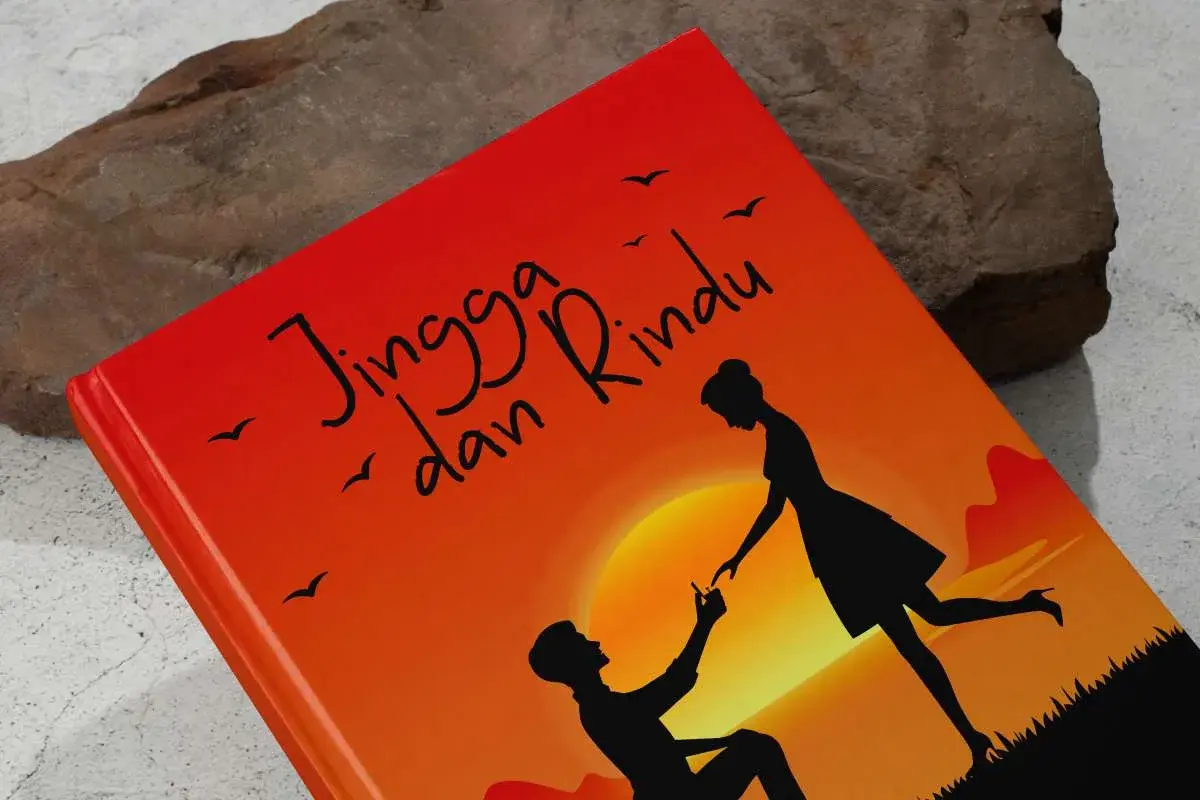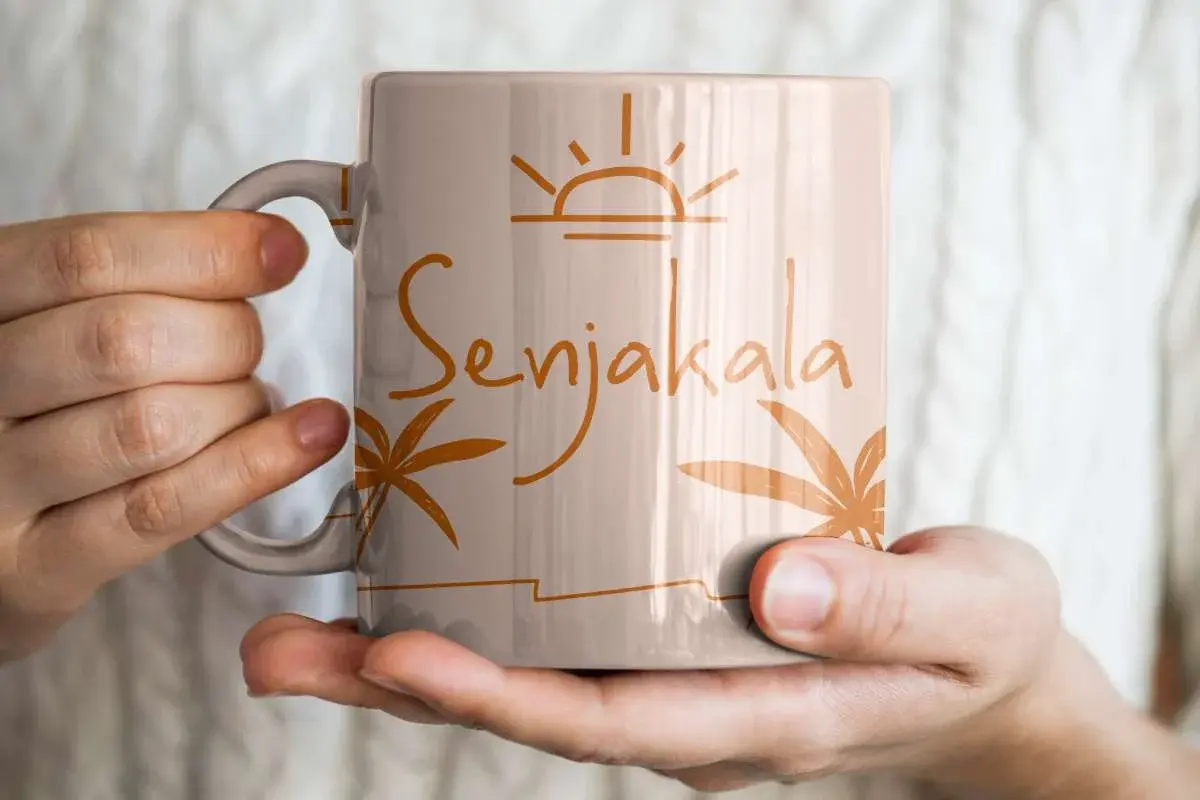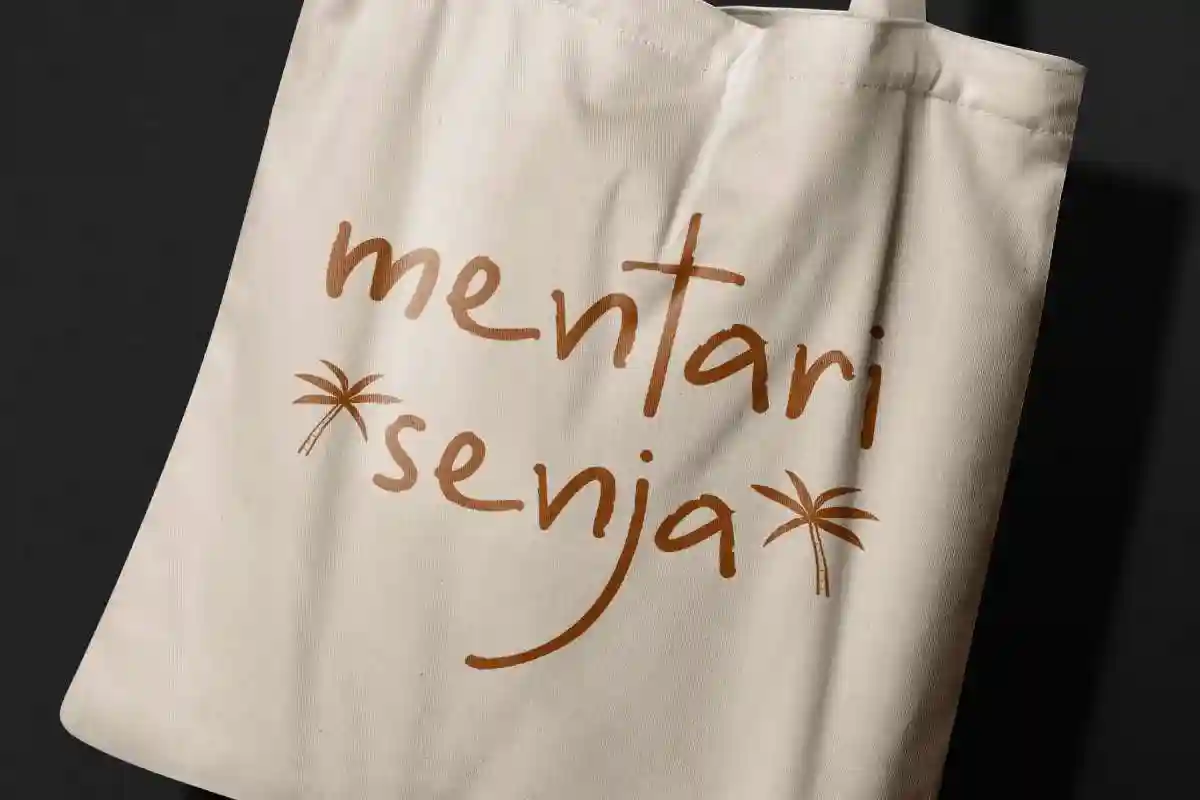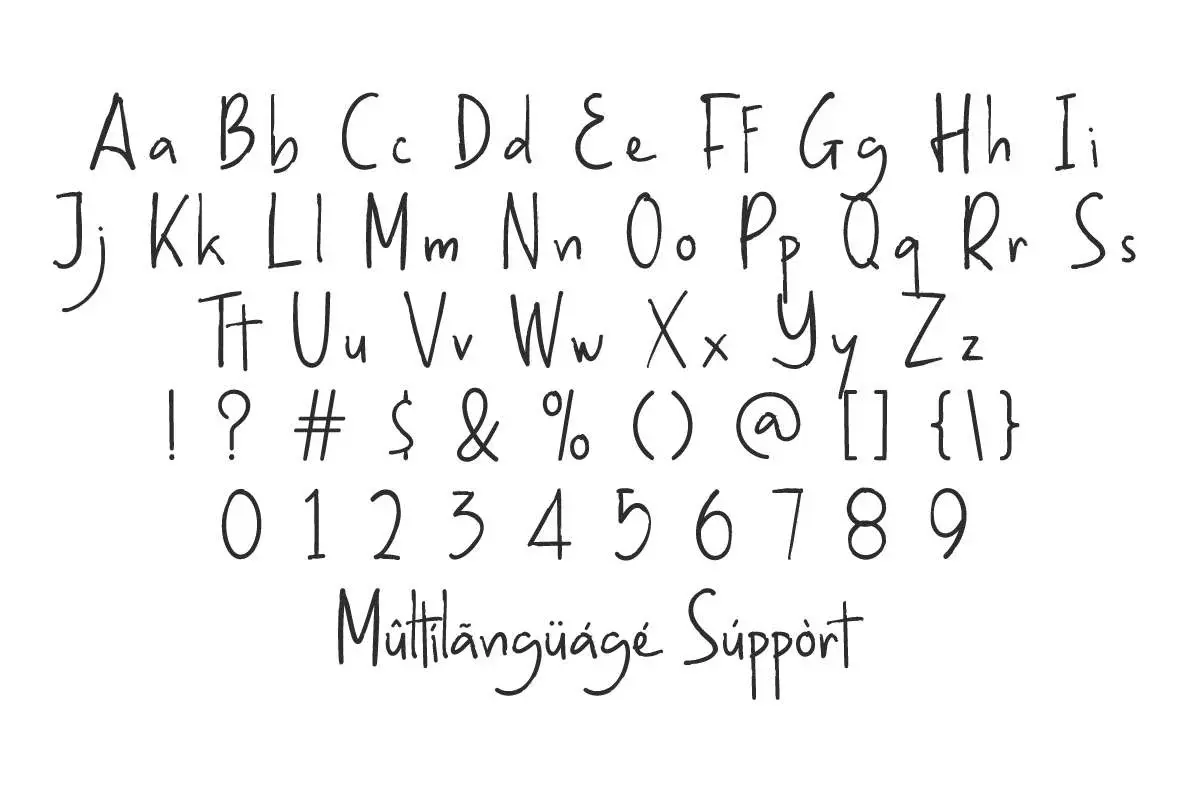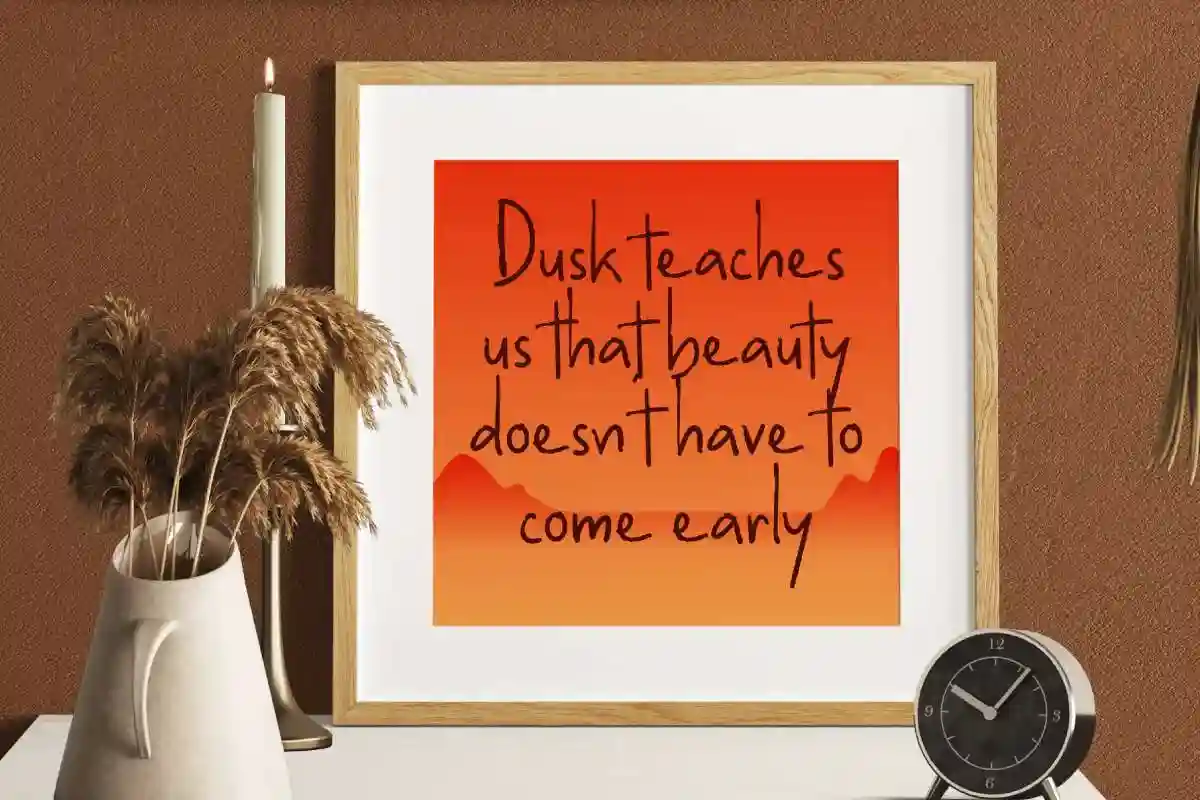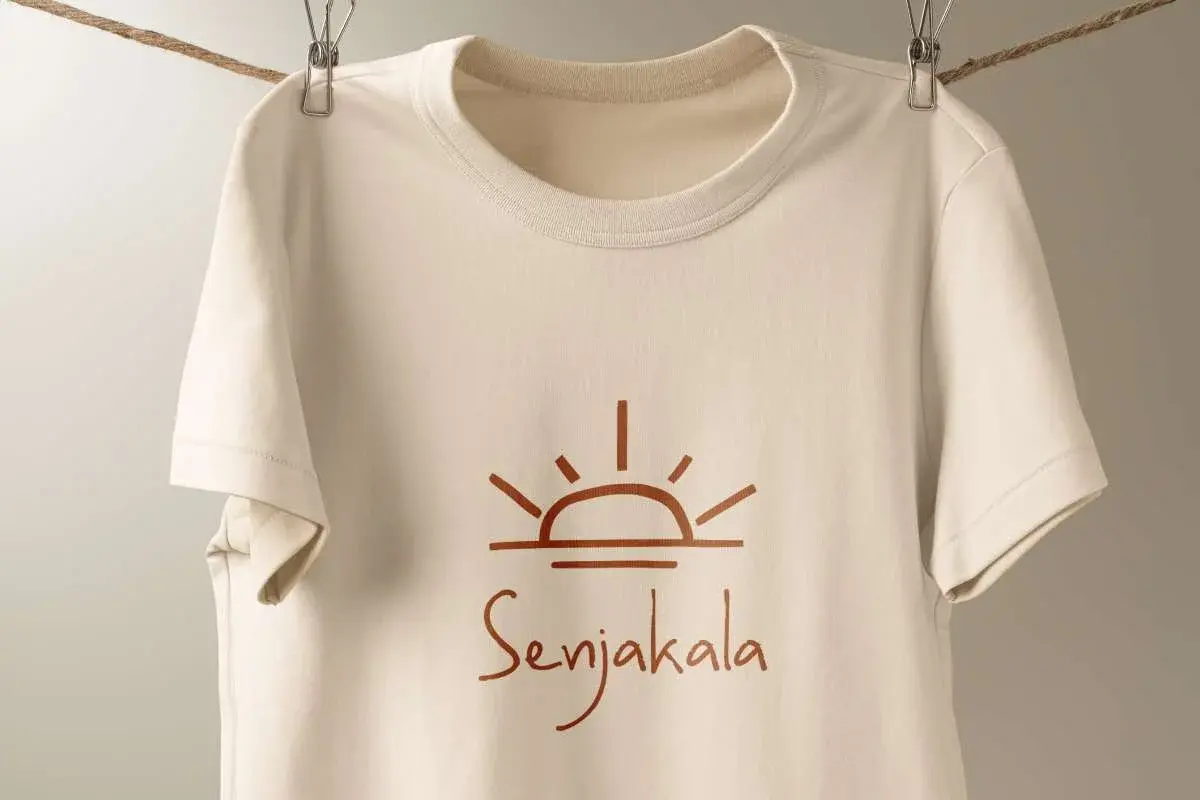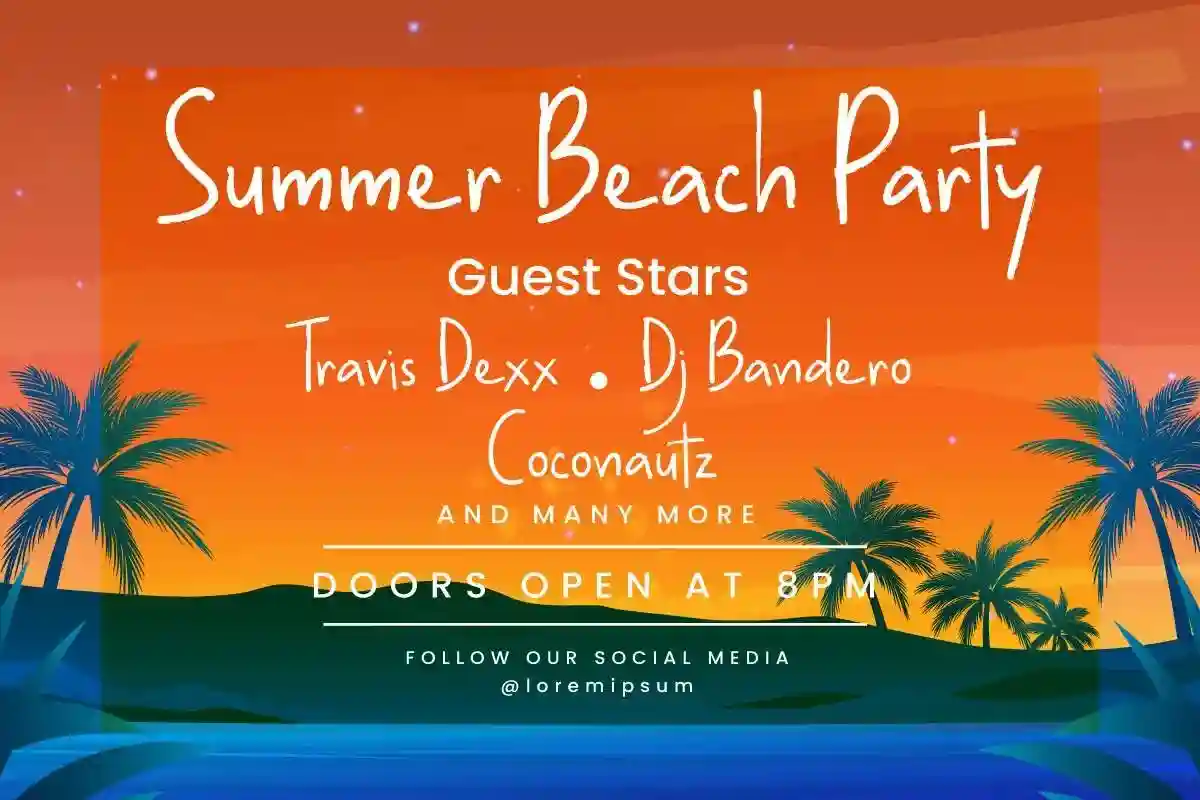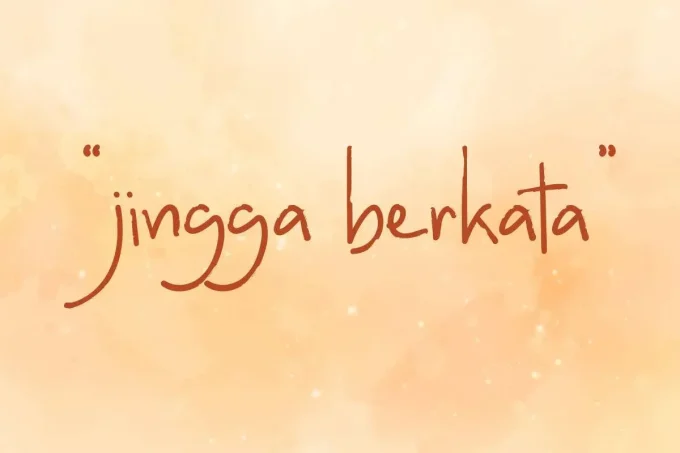
Jingga Berkata Font is a charming textured monoline handwriting light brush font. It’s crafted for brandings, promotions, invitation, quotes, and anything else.
Jingga Berkata Font is a textured monoline handwriting light brush font. It is created with a semi-thin black ink brush that looks sleek to achieve a distinct brush stroke look and feel so it will be useful in any design, such as apps, branding, book cover, flyer, label, lettering, logos, logotype, poster, packaging design, quotes, screen printing, stationery, sticker, title, website header, etc. It’s reminiscent of freestyle street art through its subtle distorted eroded effect.
Jingga Berkata Font includes a complete set of Uppercase and Lowercase basic characters, Numbers, Punctuation Marks and Symbols. Typography with a twilight concept provides perfect beauty at the end. It will be dynamic in business industries such as apparel, art, author, content creator, crockery, graphic design, handicrafts, home products, music show, photography, and more.